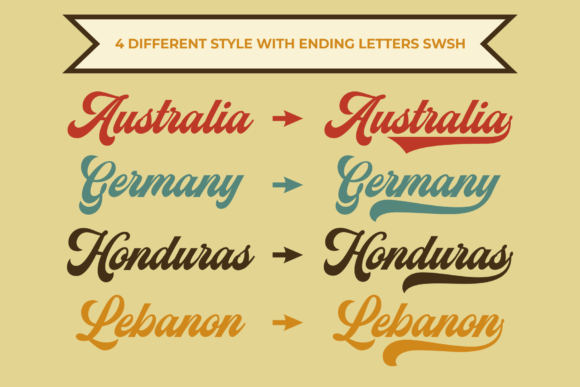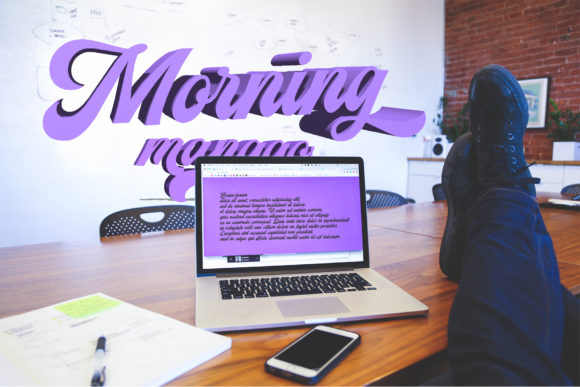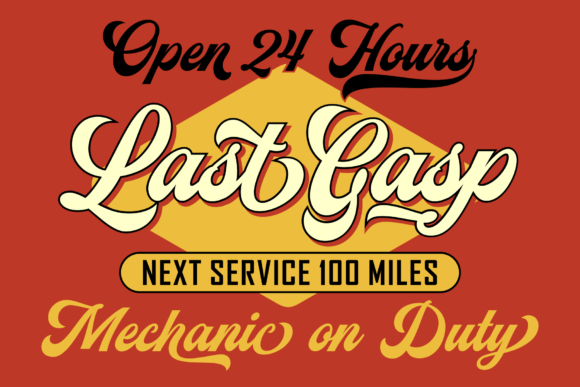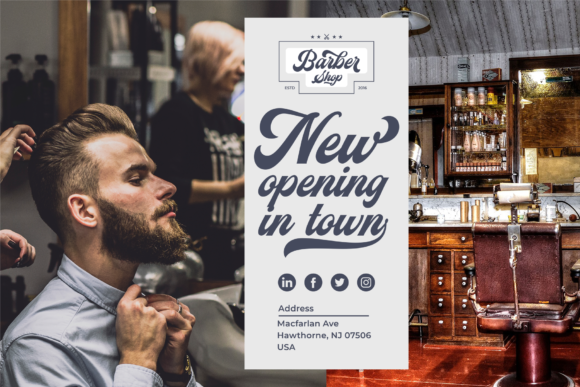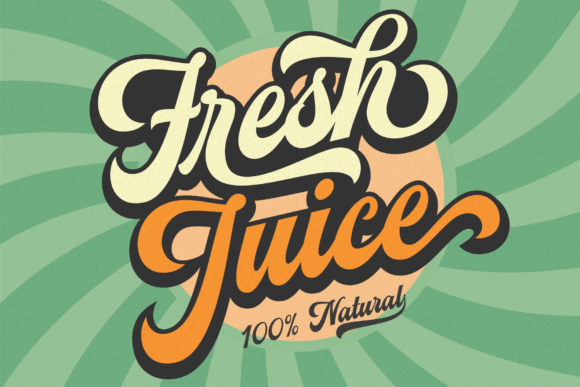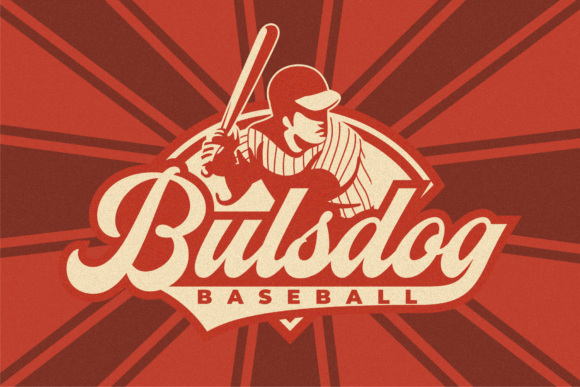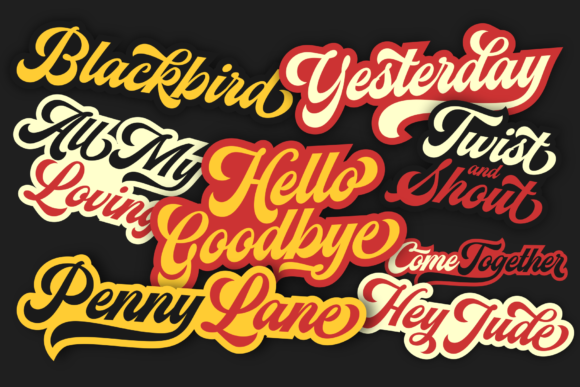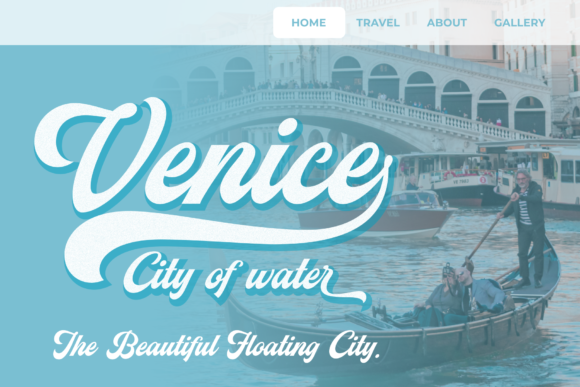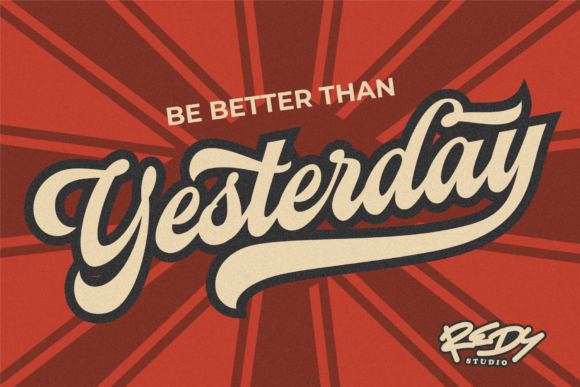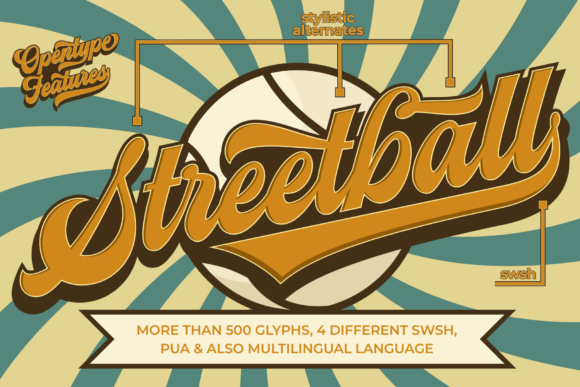
Streetball Font
About Streetball Font
Streetball is a fun and playful handwritten font, perfect for any advertising projects! It combines confidence with great legibility!